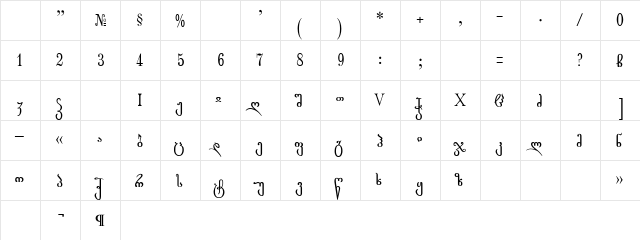
rustaveliL Normal
Design Context for rustaveliL Typeface
rustaveliL is a composed and adaptable typeface that performs quietly and consistently across a wide range of design contexts.